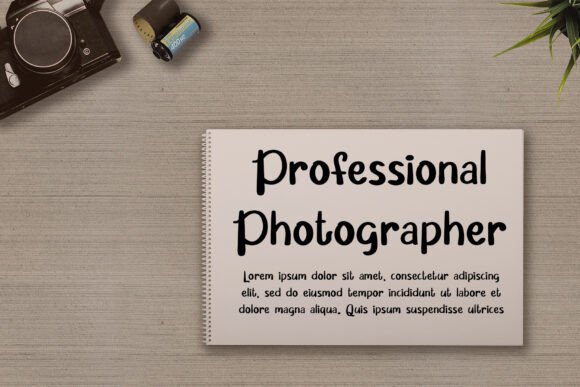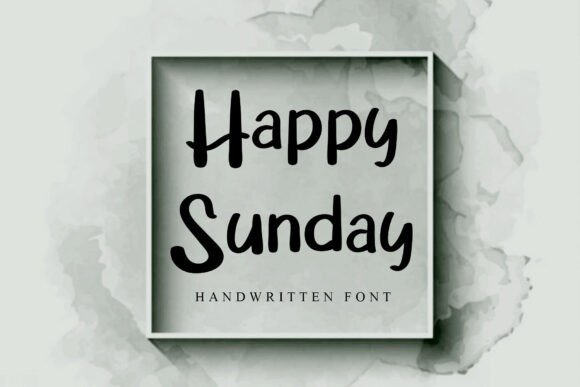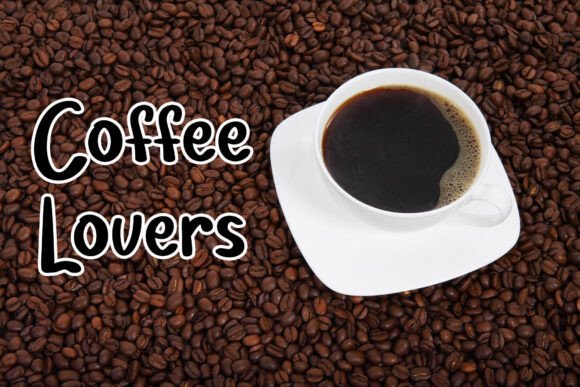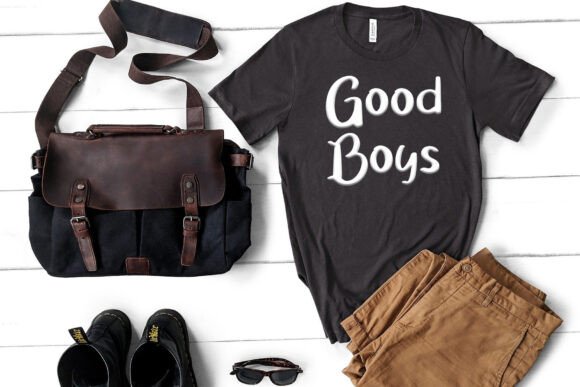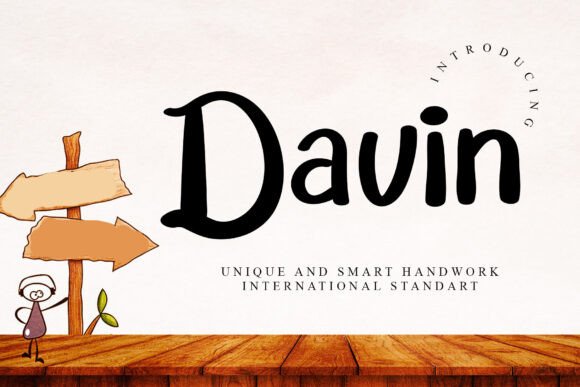
Davin Font: Elevate Your Designs with Elegance and Sophistication
In the world of typography, a font can make or break a design. For designers and crafters seeking to add a touch of elegance and sophistication to their projects, the Davin Font is an exceptional choice. This unique and elegant font is perfect for a wide range of applications, from wedding invitations and greeting cards to billboards, logos, and business cards.
The Unique Characteristics of Davin Font
What sets Davin Font apart is its distinctive, handcrafted feel. The font features a varied baseline, which gives it a natural, hand-made touch. This characteristic makes it ideal for designs that require a personal and intimate feel. Whether you’re working on a wedding invitation or a business card, Davin Font brings a level of sophistication and elegance that’s hard to match.
One of the key benefits of Davin Font is its versatility. Its elegant and refined appearance makes it suitable for a wide range of design projects. Here are some of the ways you can use Davin Font:
• Wedding Invitations: Add a touch of romance and sophistication to your wedding invitations with Davin Font.
• Greeting Cards: Whether it’s a birthday, anniversary, or holiday card, Davin Font is perfect for creating heartfelt and elegant greetings.
• Billboards: Make a statement with Davin Font on your billboards, adding a level of professionalism and elegance to your outdoor advertising.
• Logos: Create a lasting impression with a logo designed using Davin Font, perfect for businesses looking for a sophisticated brand image.
• Business Cards: Stand out in the business world with elegant business cards featuring Davin Font.
Davin Font is PUA (Private Use Area) encoded, which means that accessing all glyphs and swashes is incredibly easy. PUA encoding allows designers to access a wide range of characters and glyphs that aren’t found on a standard keyboard. This feature is particularly useful for designers who want to add a personal touch to their work without the hassle of complicated font management.
Why Choose Davin Font?
There are several reasons why Davin Font stands out from the crowd:
• Elegance: Davin Font offers an unmatched level of elegance, perfect for designs that require a sophisticated look.
• Versatility: From digital designs to print materials, Davin Font adapts seamlessly to various mediums.
• Readability: Despite its elegant and handwritten nature, Davin Font remains highly readable, making it suitable for both headings and body text.
Tips for Using Davin Font Effectively
To get the most out of Davin Font, consider the following tips:
• Pair it with Other Fonts: While Davin Font is stunning on its own, pairing it with complementary fonts can enhance your design. Look for fonts with a similar elegance and sophistication.
• Experiment with Swashes: Take advantage of the PUA encoding to experiment with different swashes and glyphs. This can add a unique touch to your designs.
• Adjust Kerning and Spacing: To ensure optimal readability and aesthetics, don’t hesitate to adjust the kerning and spacing between letters.
Davin Font is a game-changer for designers and crafters looking to elevate their designs with a touch of elegance and sophistication. Its unique, handcrafted feel, versatility, and PUA encoding make it an exceptional choice for a wide range of projects. Whether you’re working on wedding invitations, logos, or billboards, Davin Font is sure to make your designs stand out. With its ease of use and exceptional design, Davin Font is an asset to any designer looking to create stunning and memorable creations.